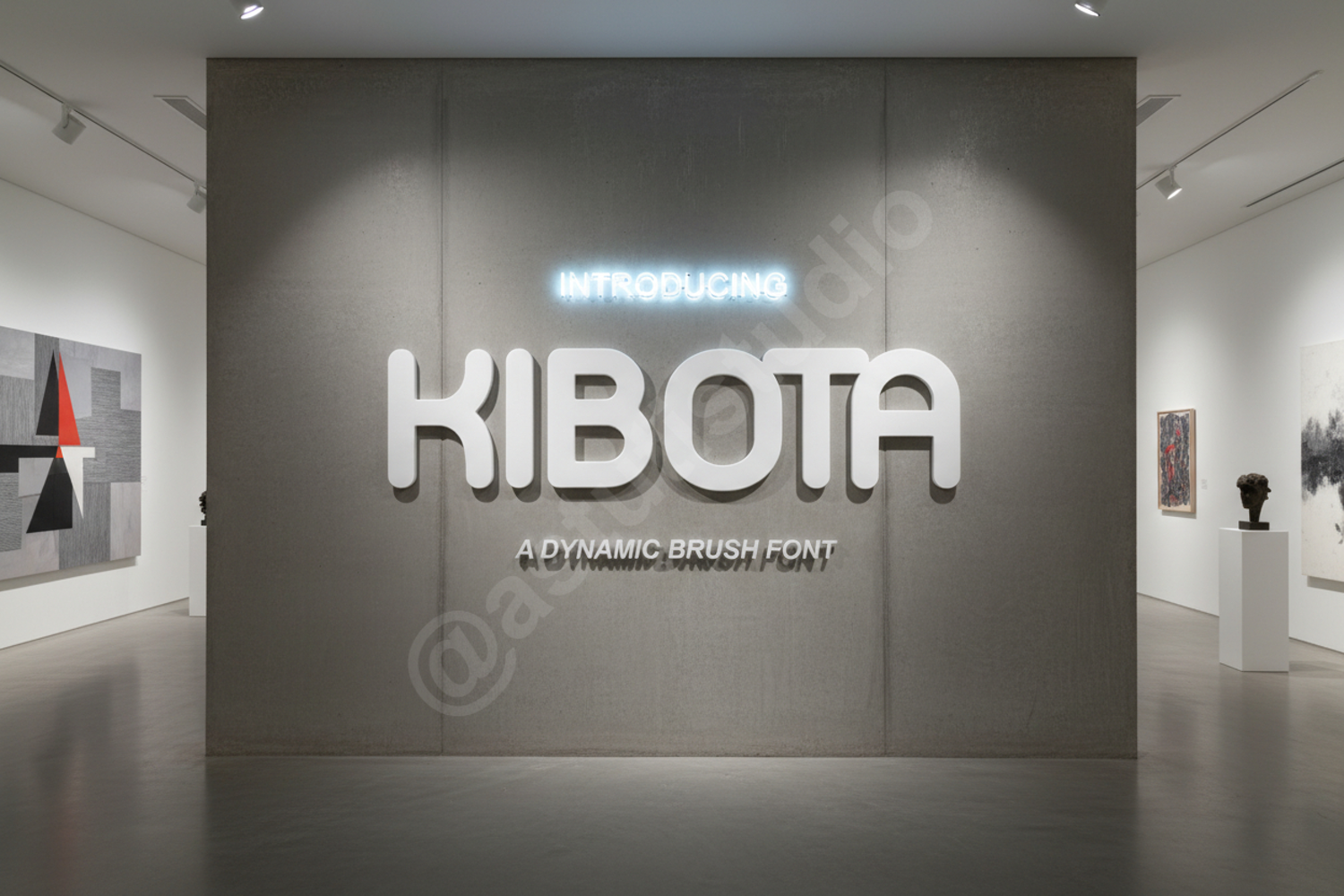
Kibota - Modern Minimalist Sans Serif Typeface
Kibota
Elevate your design projects with Kibota, a premium minimalist sans serif font that embodies sophistication and modern elegance. Meticulously crafted with clean lines and balanced proportions, Kibota is designed to provide maximum legibility while maintaining a high-end aesthetic. Whether you are working on a corporate identity or a creative editorial piece, this typeface offers the versatility needed for professional results.
- Full set of Uppercase and Lowercase characters
- Numbers and Punctuation
- Extensive Multilingual Support
- Luxury Branding and Identity: Create a memorable presence for high-end brands.
- Editorial Design: Perfect for magazine layouts, headlines, and body text.
- Digital Marketing: Enhance your social media graphics and website headers.
- Minimalist Logos: Build clean and impactful logotypes.
- Packaging: Add a touch of refinement to product boxes and labels.